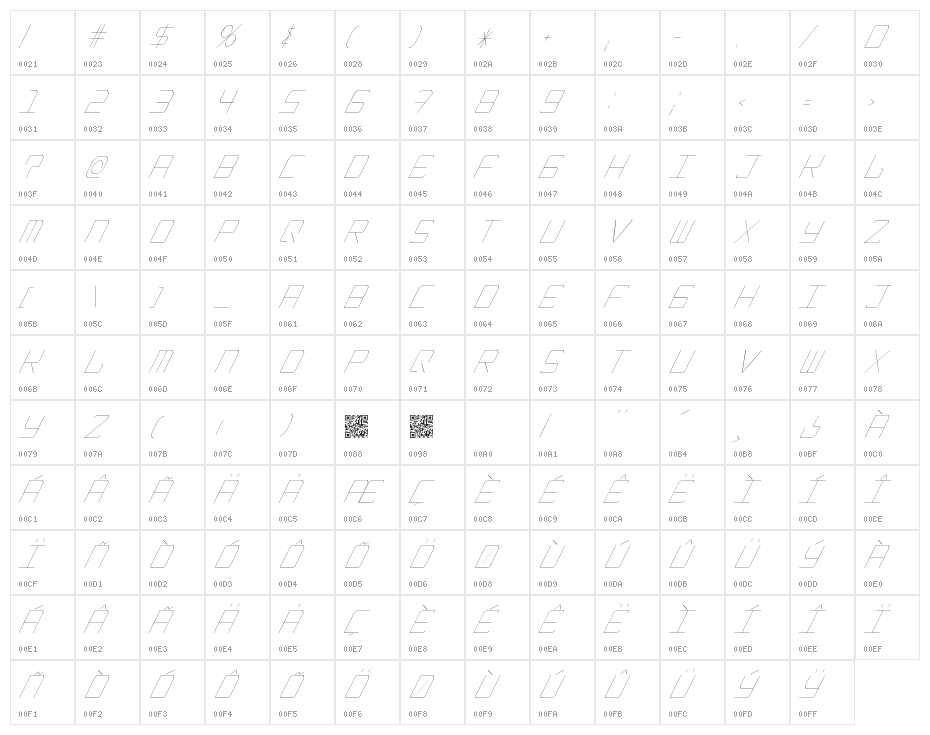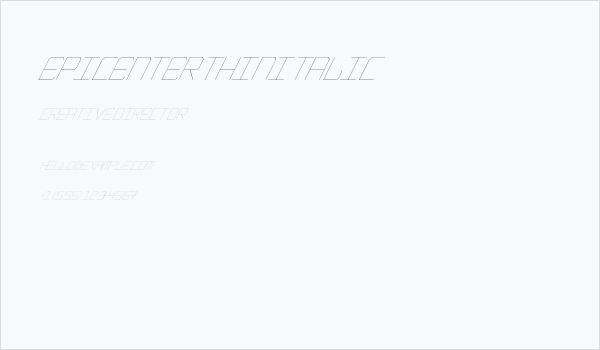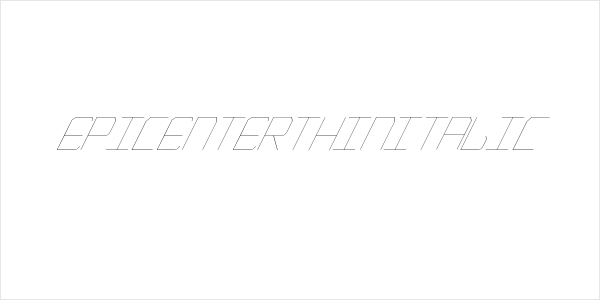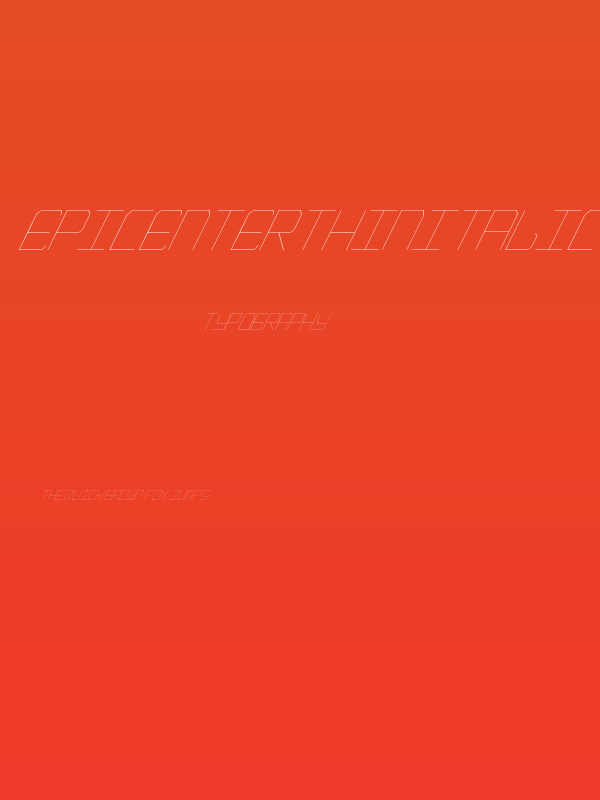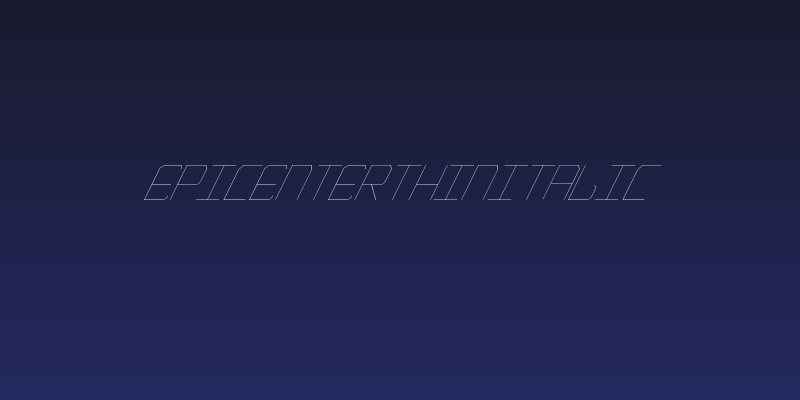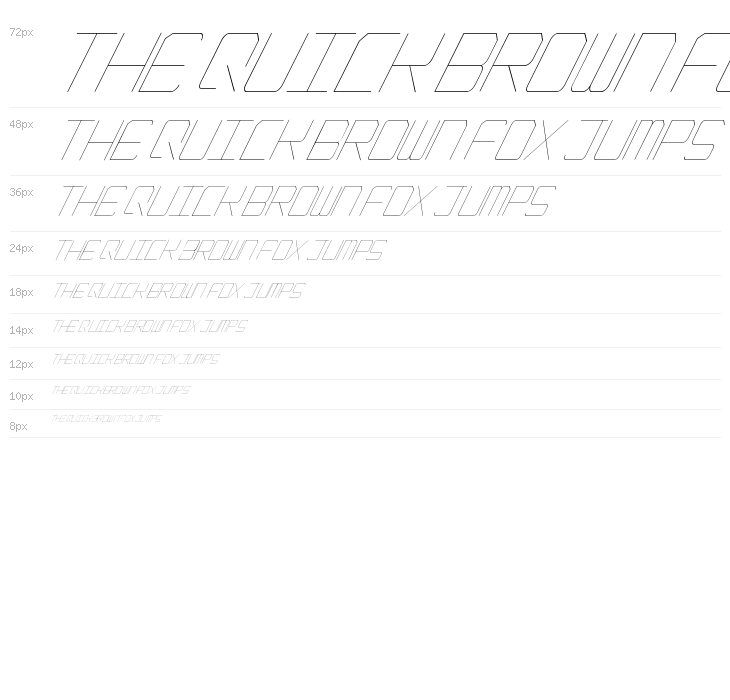
EpicenterThinItalic Font
EpicenterThinItalic Description
This font presents a sleek, modern aesthetic with its thin, italicized letterforms. The characters are constructed with clean, straight lines and sharp angles, giving it a futuristic and technical feel. The uppercase and lowercase letters maintain a consistent slant, enhancing the italic style. The numerals and special characters follow the same design principles, ensuring uniformity across the typeface. Its minimalistic approach, combined with the italic slant, makes it suitable for contemporary designs that require a touch of elegance and sophistication.
| Proposed Projects | Ideal for tech branding, modern posters, sleek product packaging, and innovative web design. |